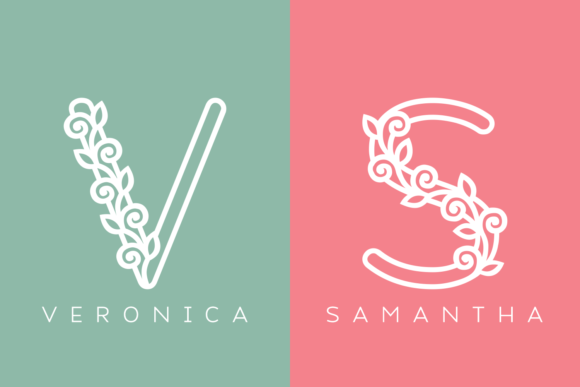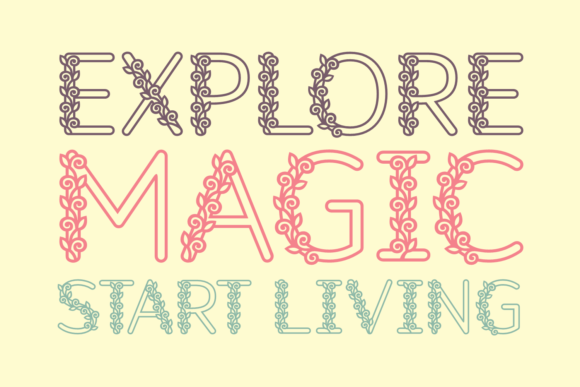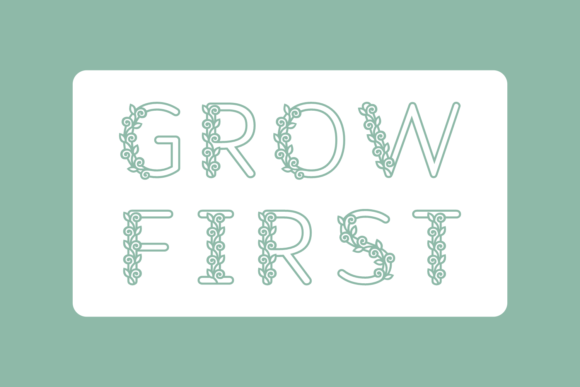
Discover the Charming Dear Spring Font: Elevate Your Designs with its Authentic Feel
Are you on the hunt for a font that can add a touch of elegance and whimsy to your designs? Look no further than the Dear Spring Font. This charming decorative font is perfect for crafters and designers who want to create stunning invitations, beautiful stationary art, eye-catching social media posts, and adorable greeting cards. In this article, we’ll dive into the world of Dear Spring Font and explore its features, uses, and benefits.
What is Dear Spring Font?
Dear Spring Font is a decorative font designed to evoke a sense of springtime freshness and charm. Its authentic feel makes it perfect for designs that require a personal touch. The font’s unique and elegant style is sure to capture the hearts of designers and crafters alike.
Features of Dear Spring Font
- Charming Design: Dear Spring Font boasts a charming design that is sure to add a touch of elegance to your designs.
- Authentic Feel: The font’s authentic feel makes it perfect for designs that require a personal touch.
- Versatile: Dear Spring Font is versatile and can be used for a wide range of design projects, from invitations to social media posts.
Uses of Dear Spring Font
Dear Spring Font is perfect for a wide range of design projects, including:
- Invitations: Create stunning invitations for weddings, baby showers, and other special occasions.
- Stationary Art: Design beautiful stationary art, including notecards, journals, and planners.
- Social Media Posts: Create eye-catching social media posts that will grab the attention of your followers.
- Greeting Cards: Design cute and adorable greeting cards for special occasions.
Benefits of Using Dear Spring Font
Using Dear Spring Font can bring numerous benefits to your designs, including:
- Unique and Elegant Style: The font’s unique and elegant style will set your designs apart from the rest.
- Increased Engagement: The font’s charming design will capture the hearts of your audience and increase engagement.
- Time-Saving: The font is easy to use and can save you time and effort in creating stunning designs.
Tips for Using Dear Spring Font
Here are some tips for using Dear Spring Font:
- Pair it with Other Fonts: Pair Dear Spring Font with other fonts to create a unique and stylish design.
- Use it for Headings: Use Dear Spring Font for headings and titles to add a touch of elegance to your design.
- Be Creative: Don’t be afraid to get creative and try new things with Dear Spring Font.
In conclusion, Dear Spring Font is a charming decorative font that is perfect for designers and crafters who want to create stunning designs. Its authentic feel, unique and elegant style, and versatility make it a must-have font for any design project. With its ease of use and cost-effectiveness, Dear Spring Font is a great addition to any designer’s toolkit. So why wait? Fall in love with Dear Spring Font and elevate your designs to the next level.